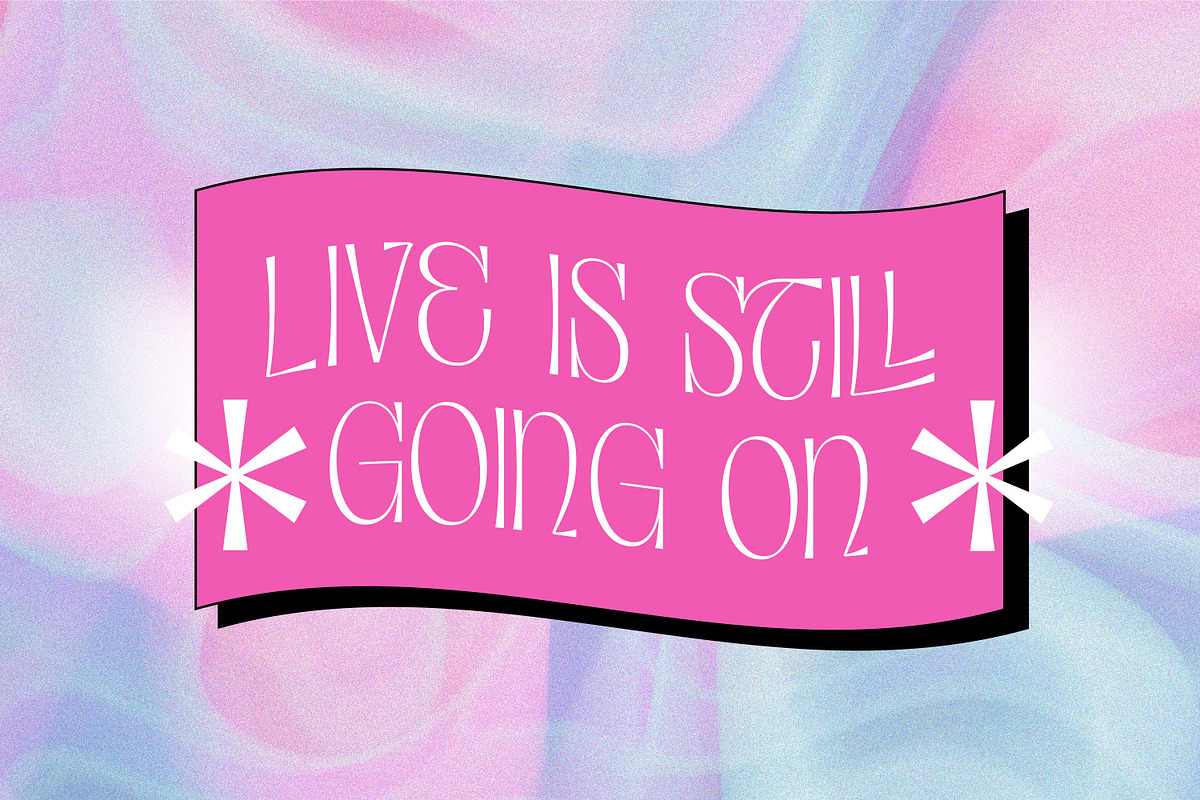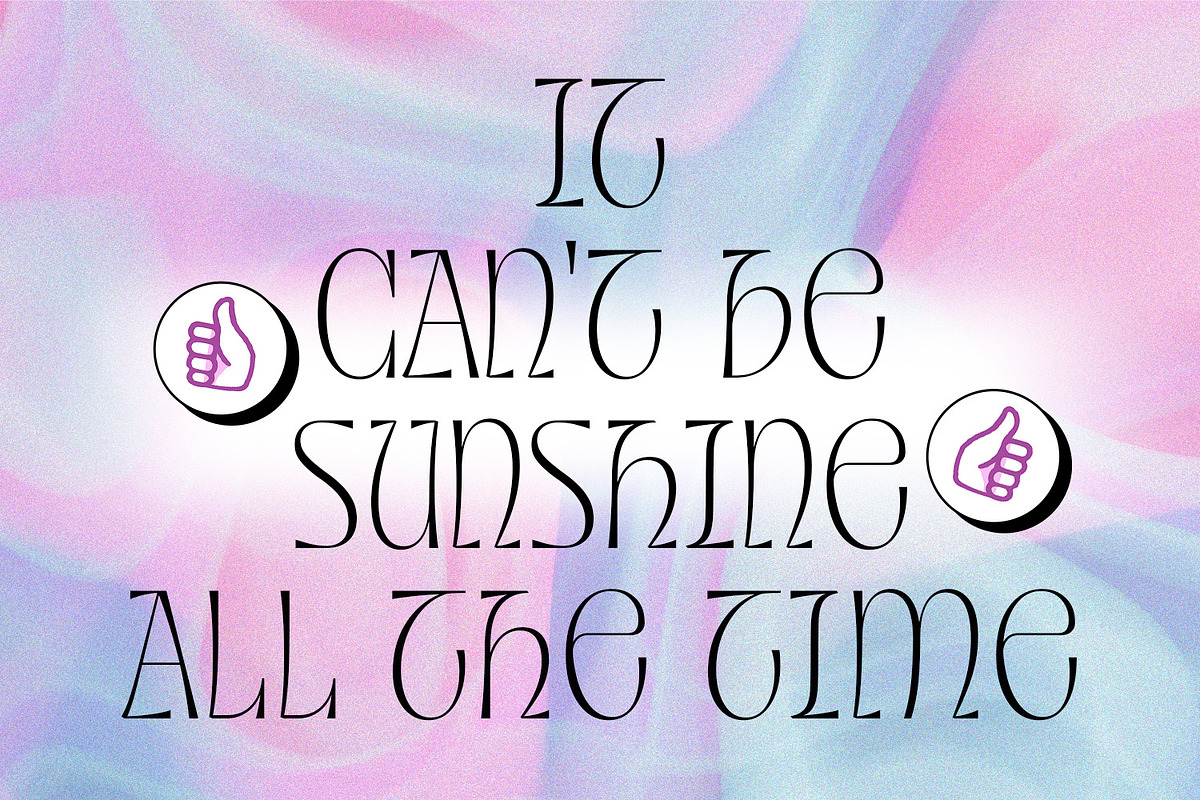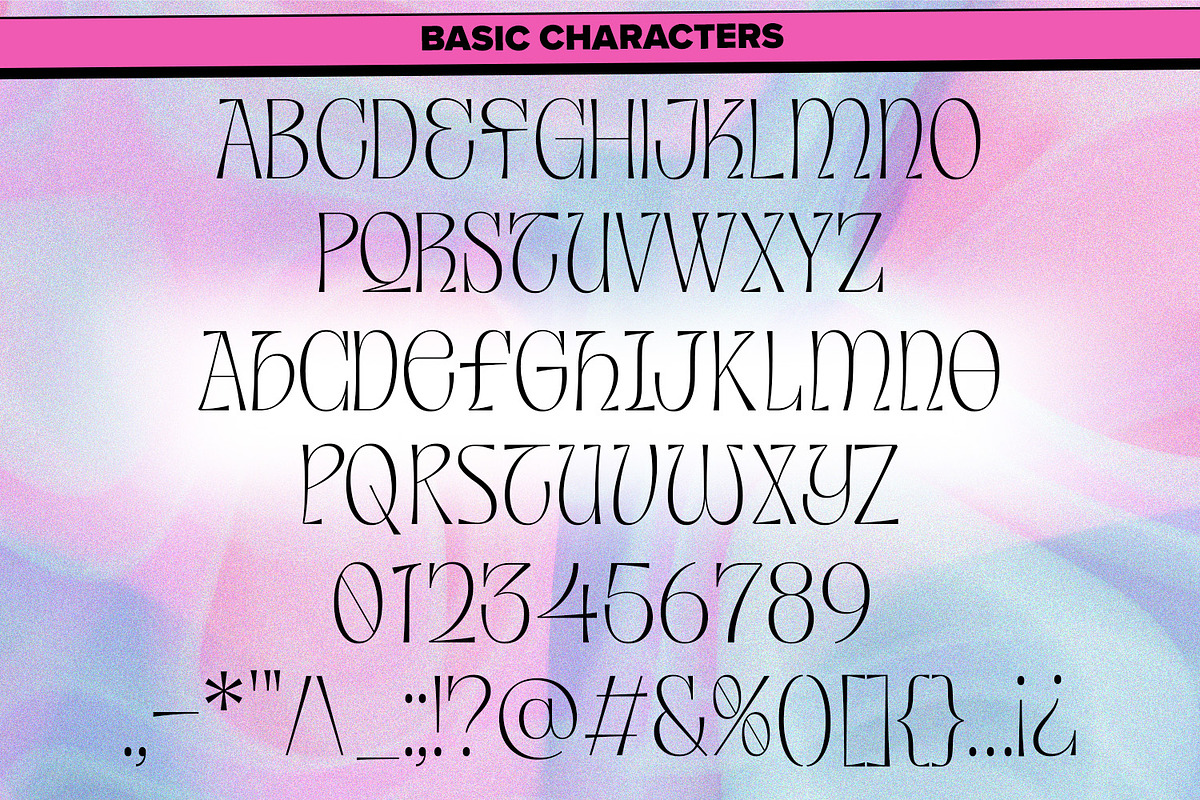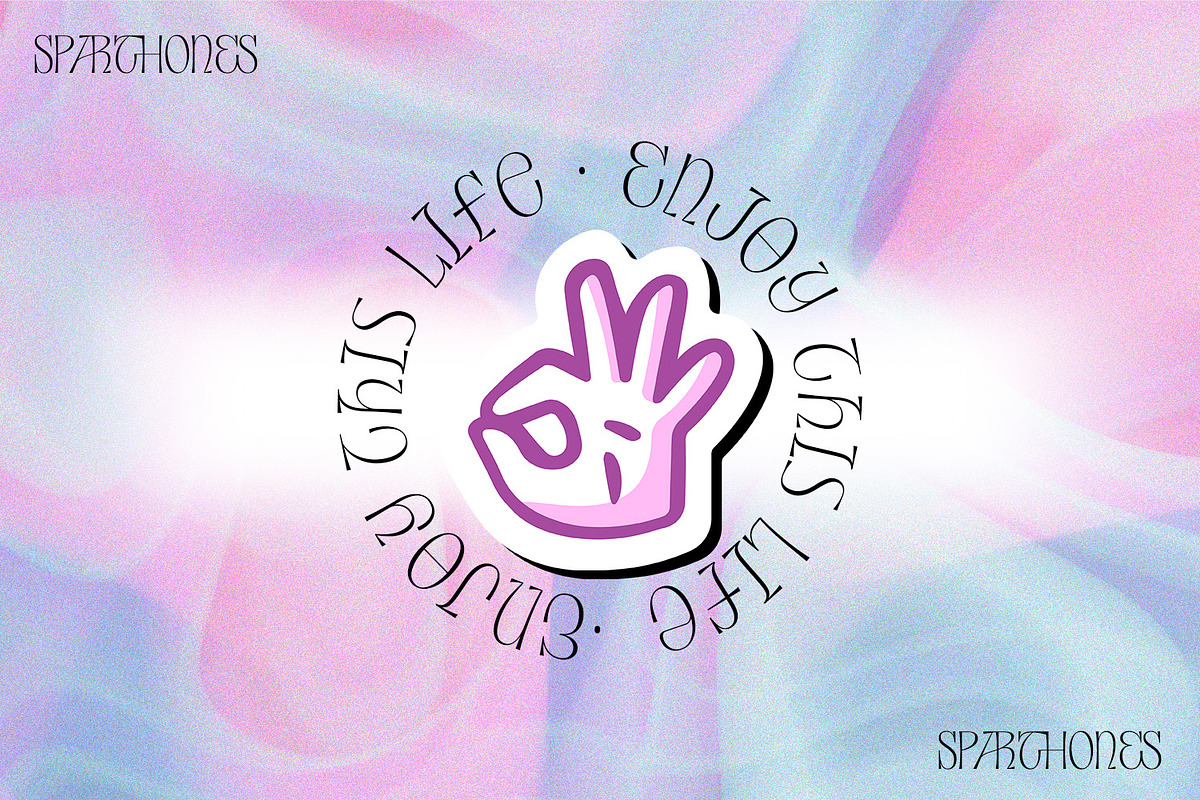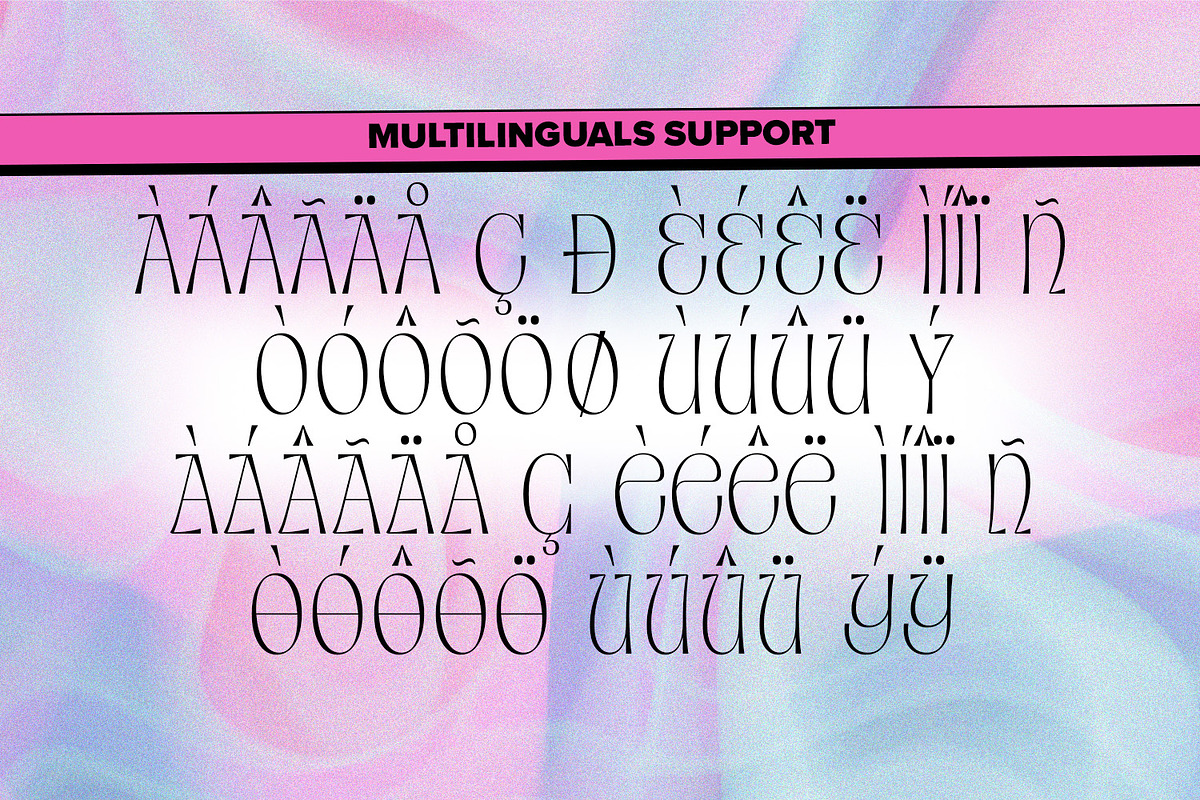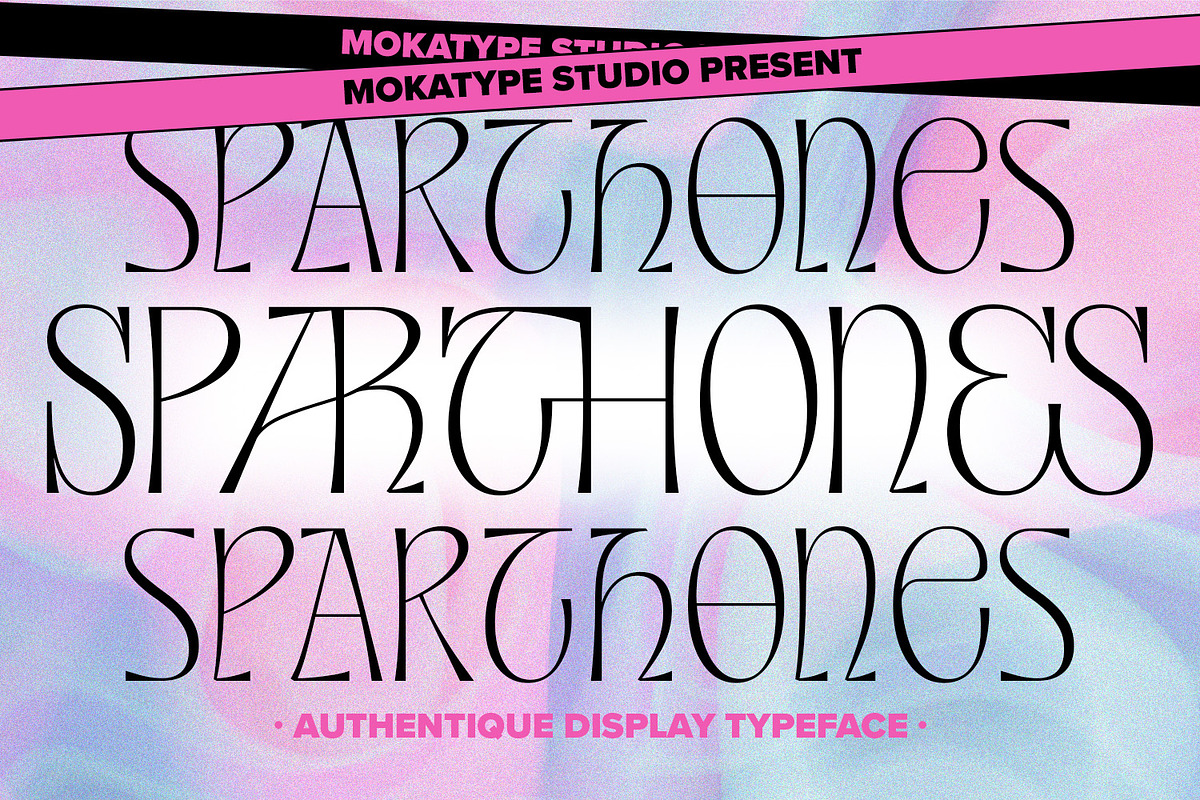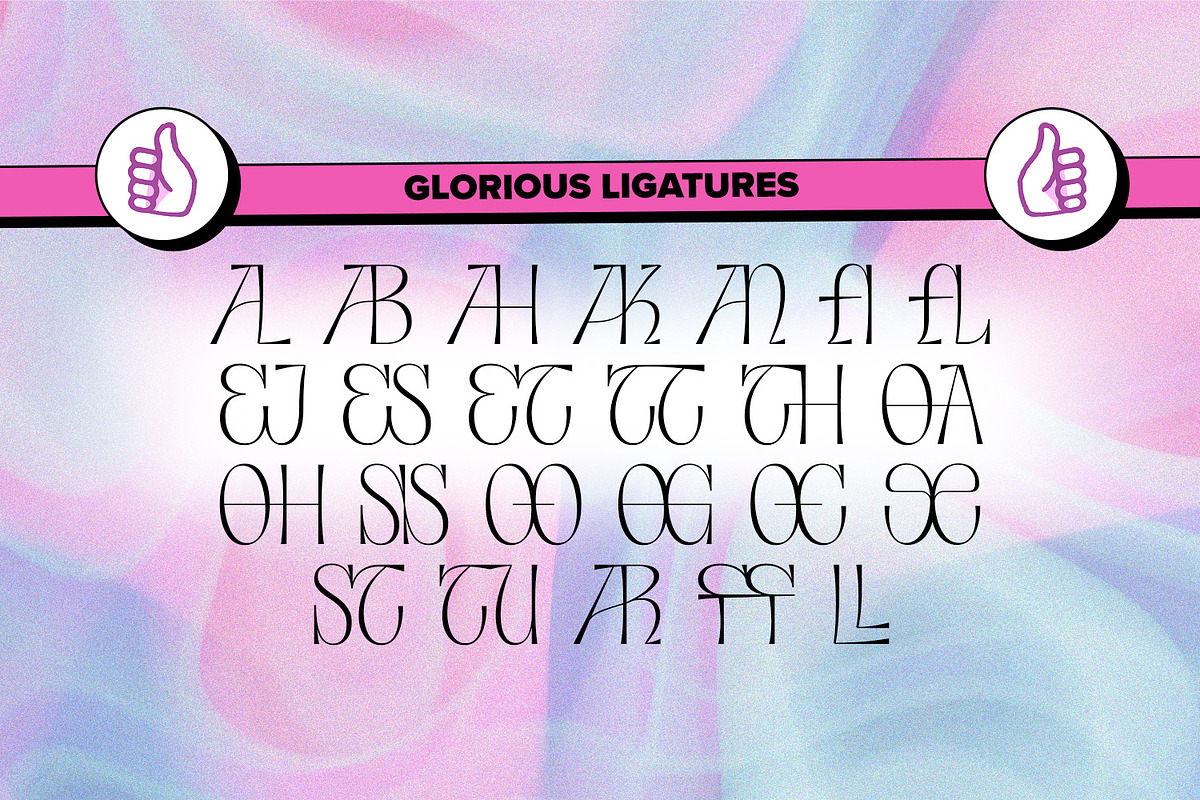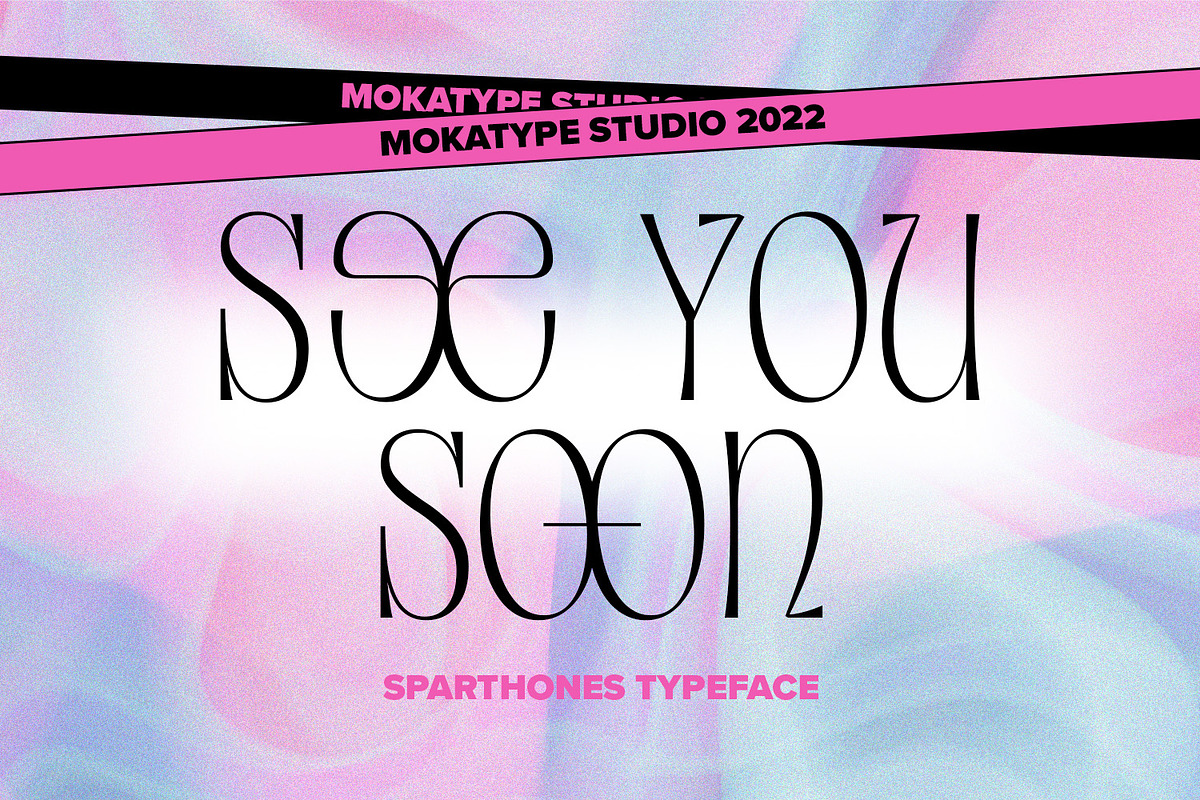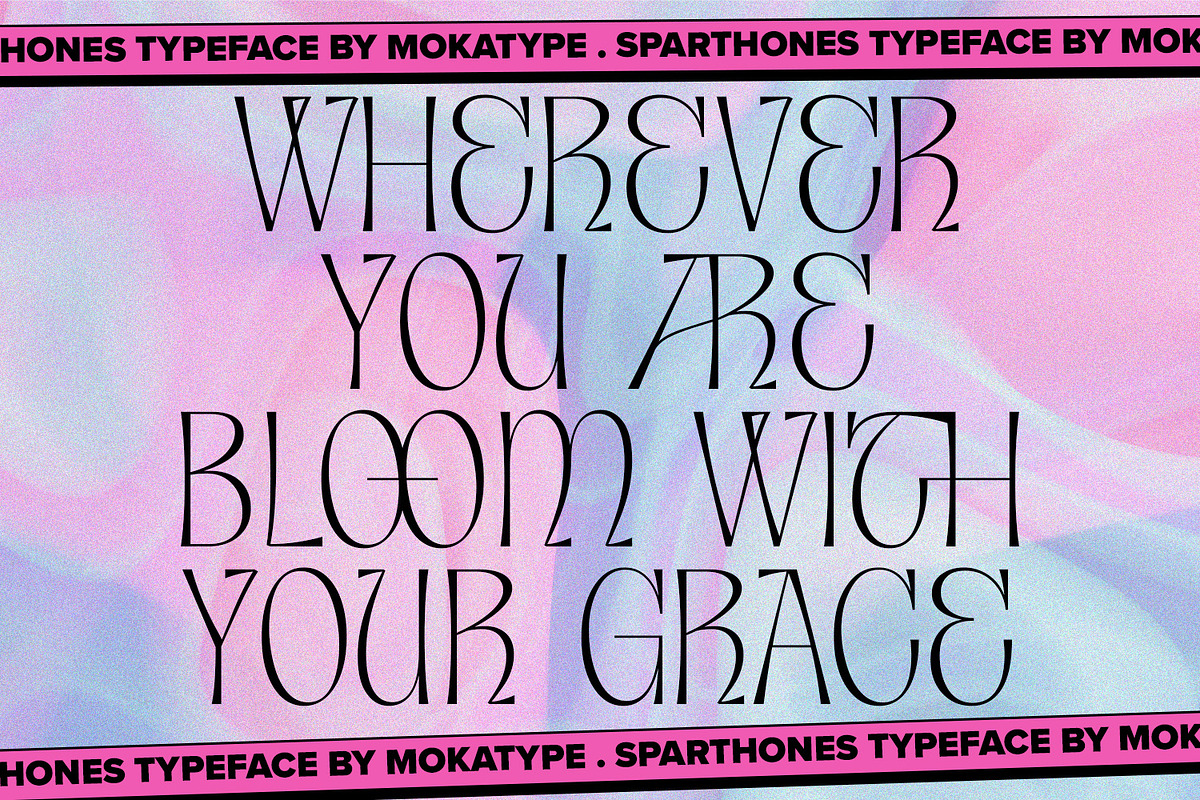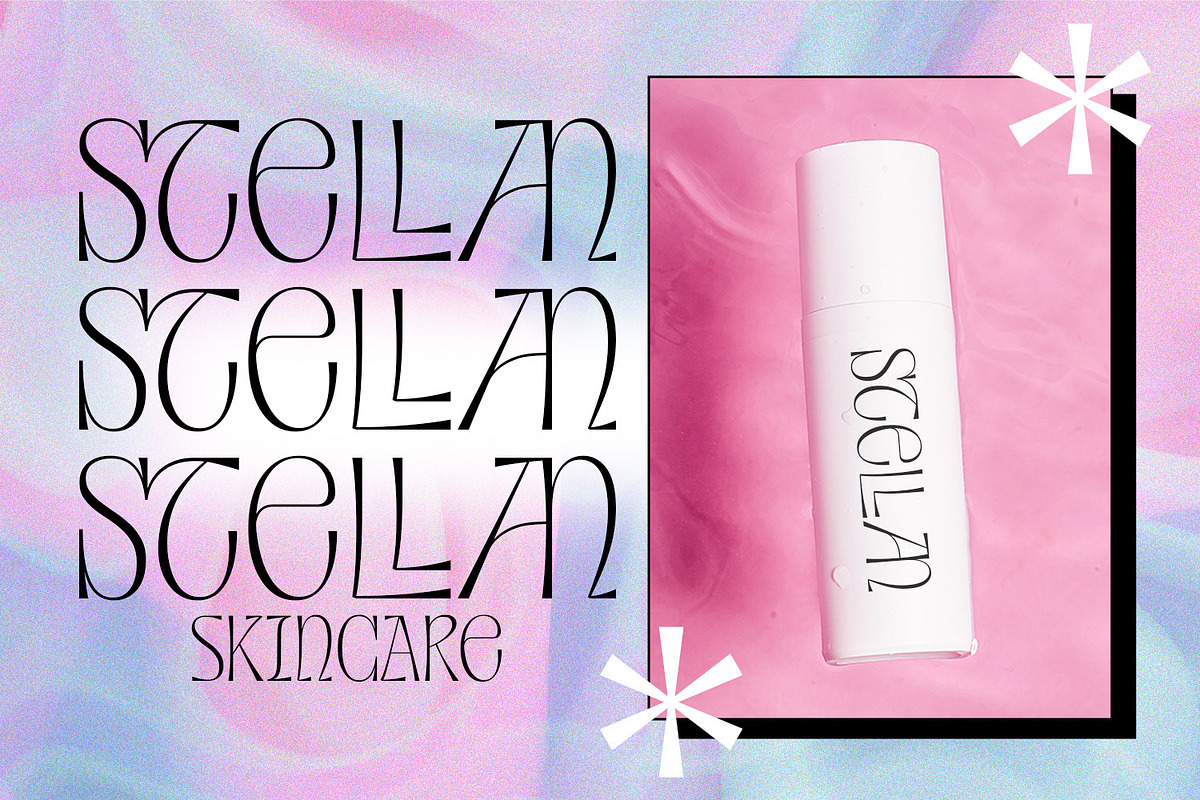
Sparthones - Authentic Display
Sparthones is an authentic display font with a beautiful character. This font building with lots of ligatures and versatile pairing between lowercase and uppercase and it makes this font more unique, beautiful, elegant, and stylish, it’s really perfect for headlines, typography, Poster, magazines, brochures, packaging, websites, and much more for your design needs, making your designs look like Luxurious nuances. What's Included :